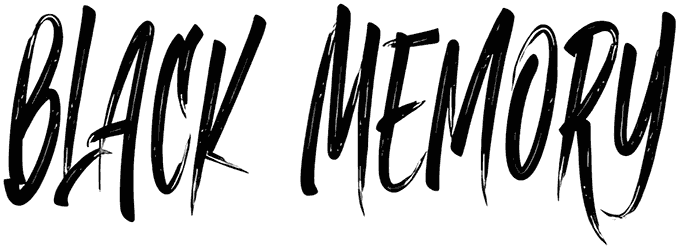
Try Leaves And Ground font to share a lovely and neat mood. This brush font is suitable for different types of products, such as; flyers, cosmetic packaging, posters, magazines, and more. Just remember, it does not support lowercase characters. Download it now and if you wish to get more, browse our vast library.